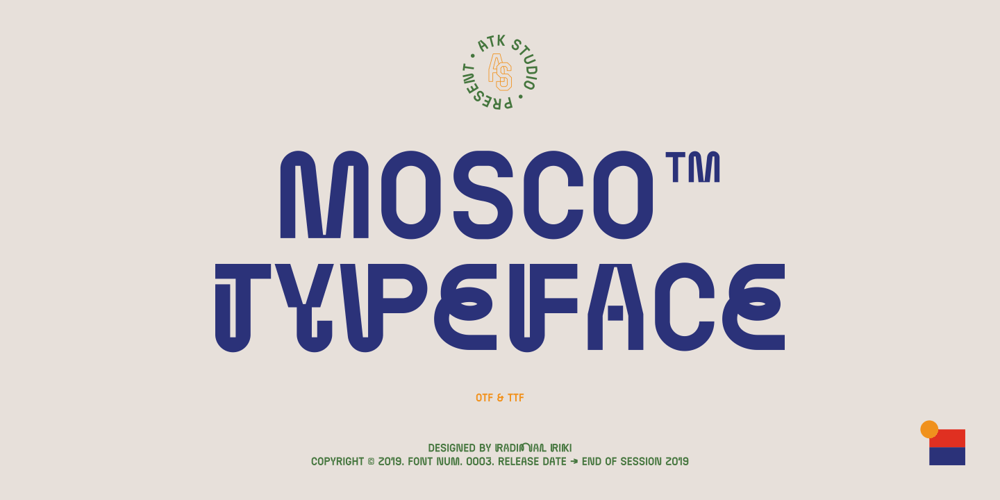
Mosco Font Family was designed by Radinal Riki and published by ATK Studio. Mosco contains 1 styles and family package options. Mosco™ is a new decorative geometric display typeface. Cleanliness and solid. A complete set of cohesive characters (A-Z) and multilanguage characters (latin based). Develop a visual presentation that complements the style and personality of the new typeface. Perfect for any purposes such as posters, logotypes and headlines.